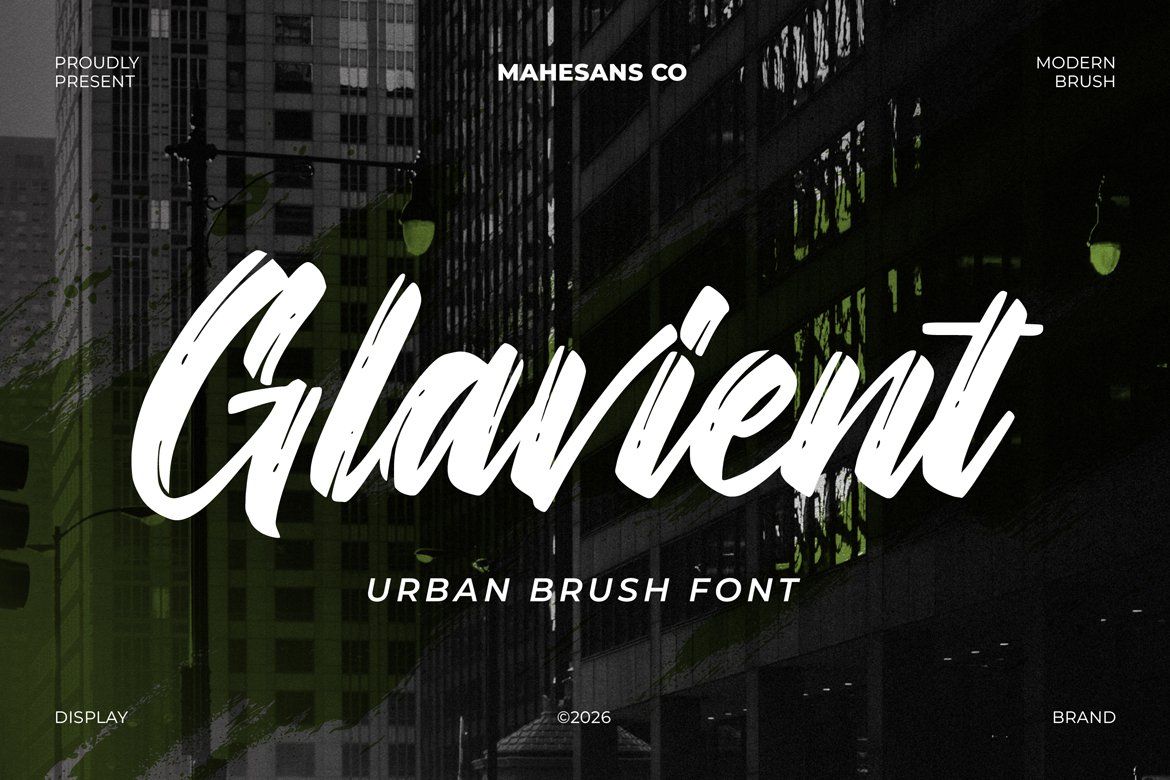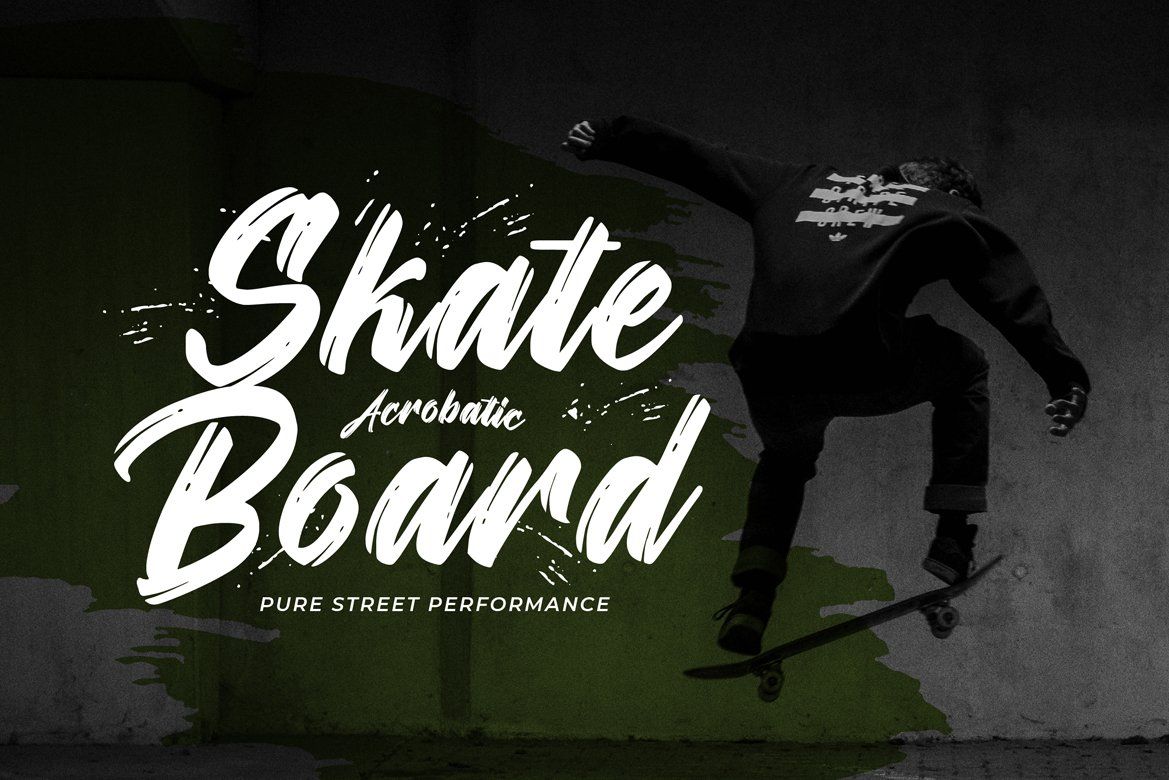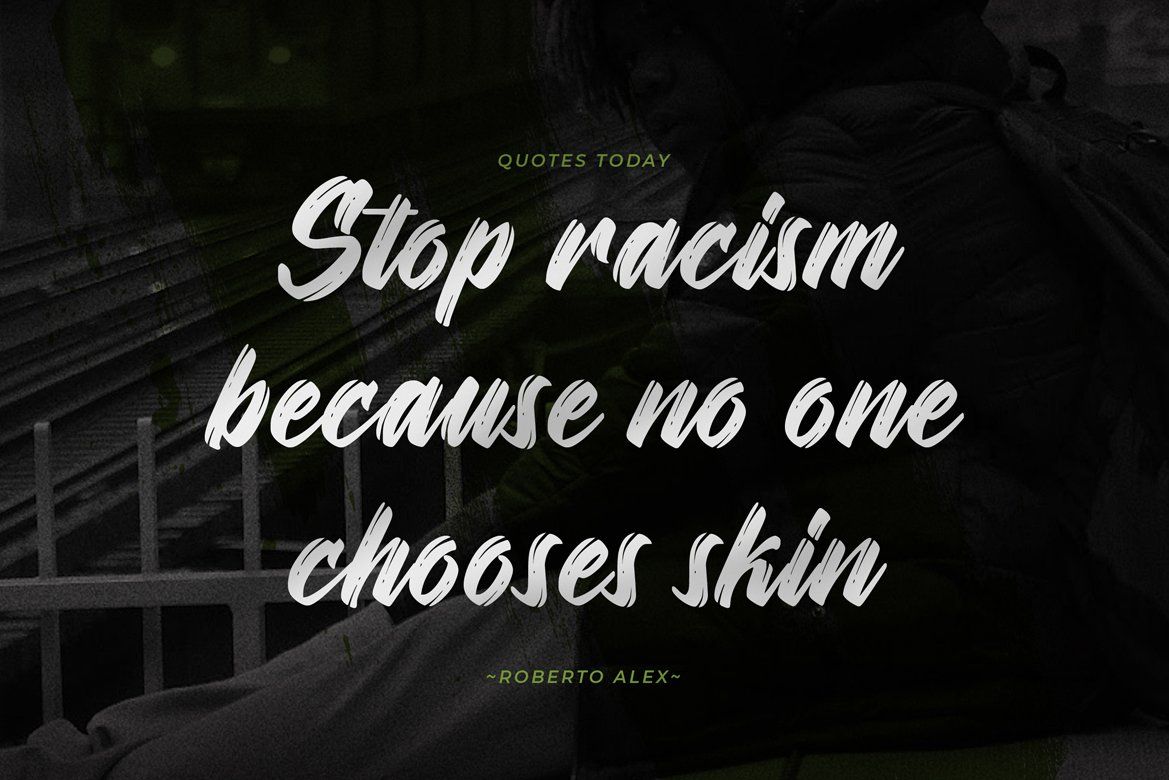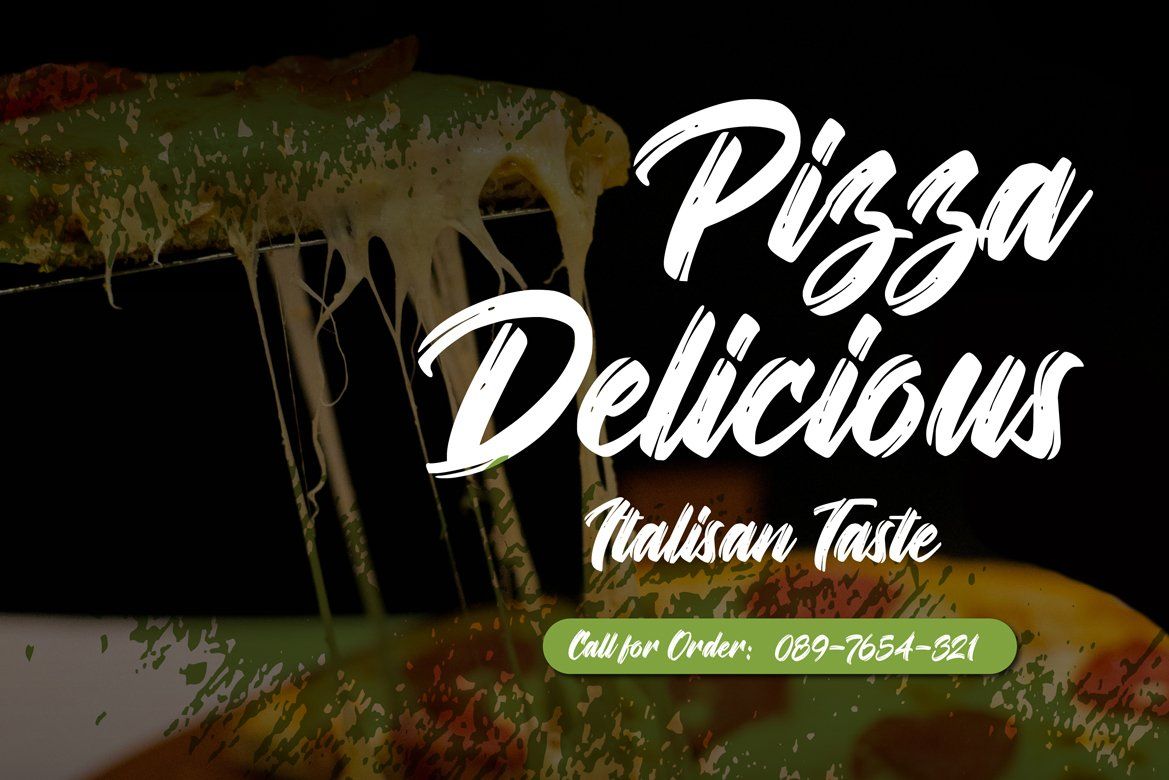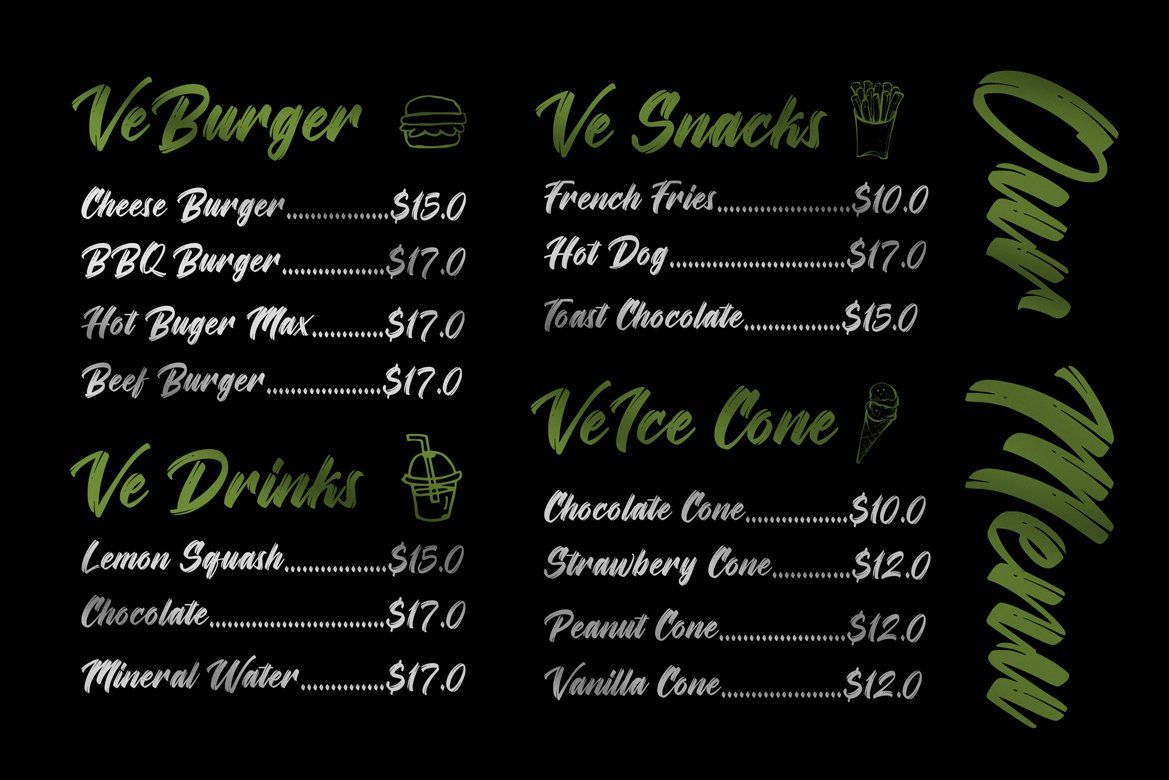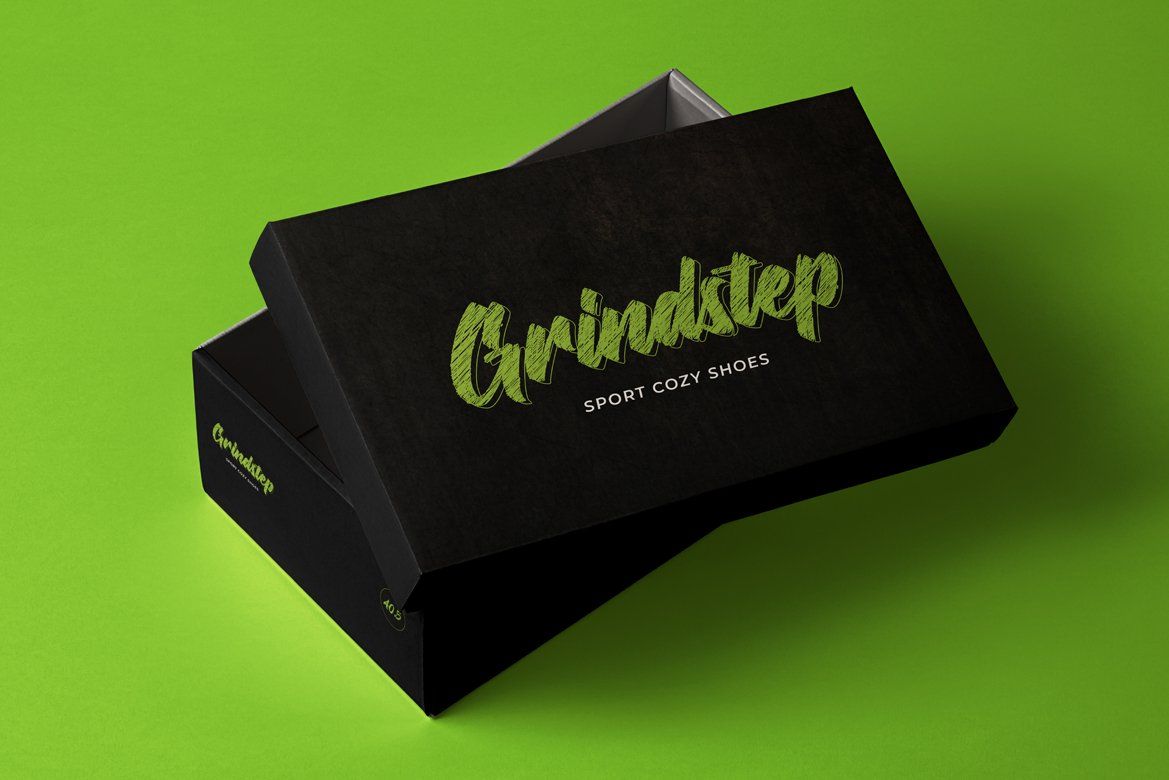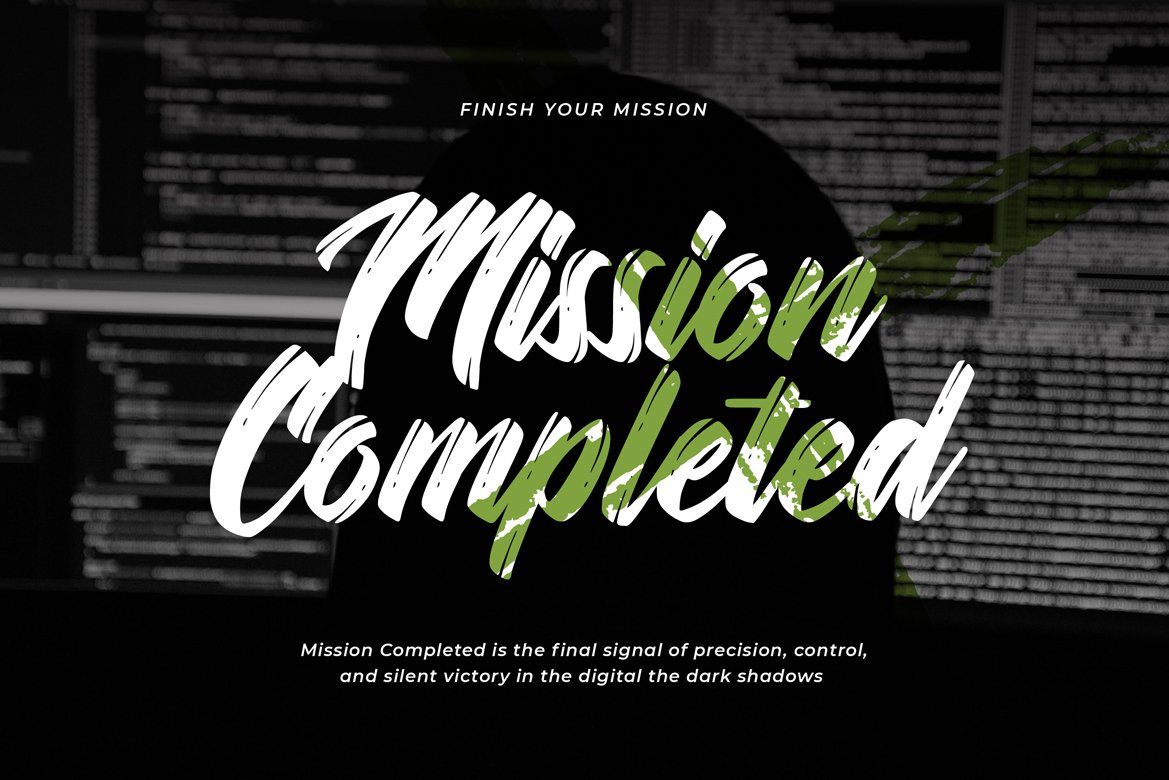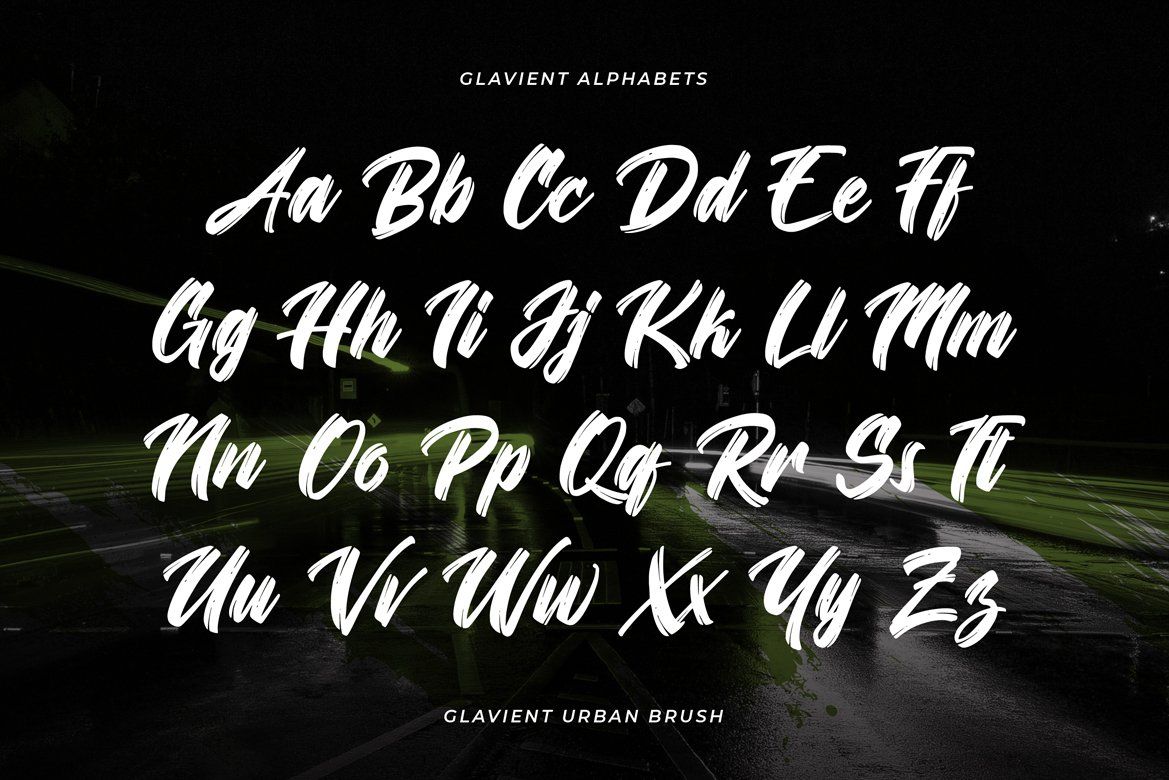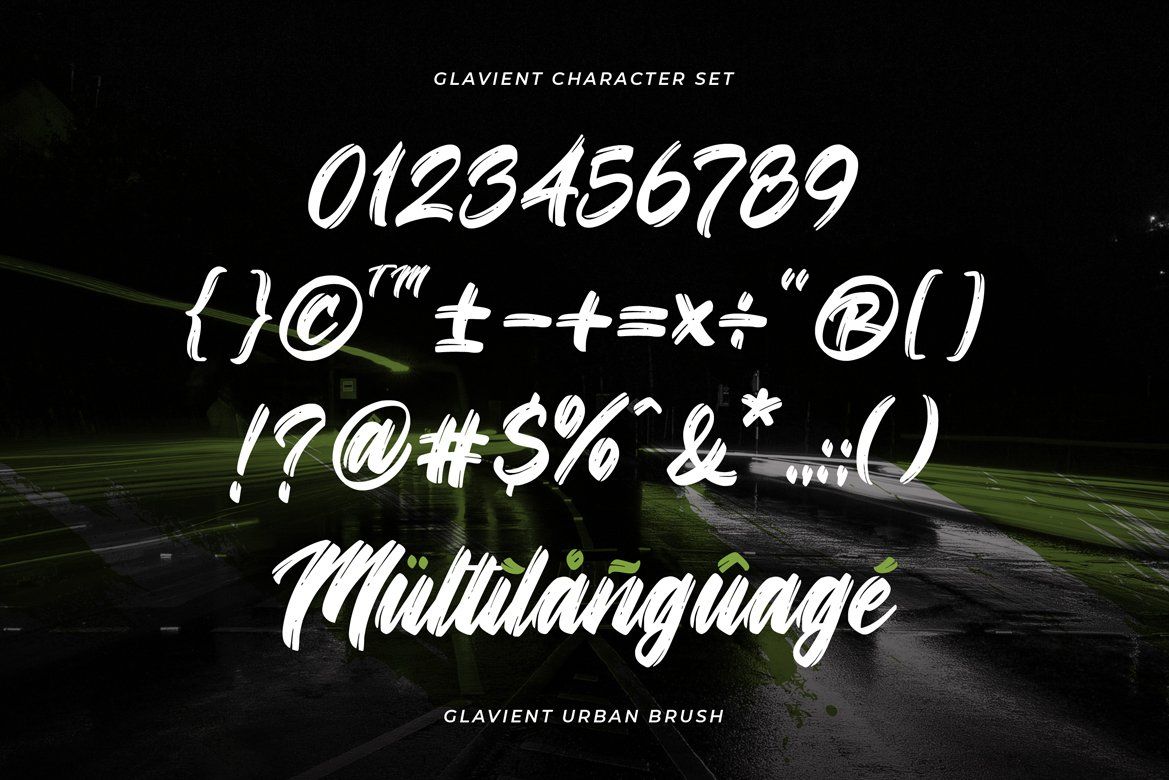
Glavient is a bold urban brush display font designed to deliver strong visual impact with a raw, street-inspired character. Built from expressive hand-drawn strokes, this font captures movement, energy, and modern brush texture in every letter.
• Multilanguage